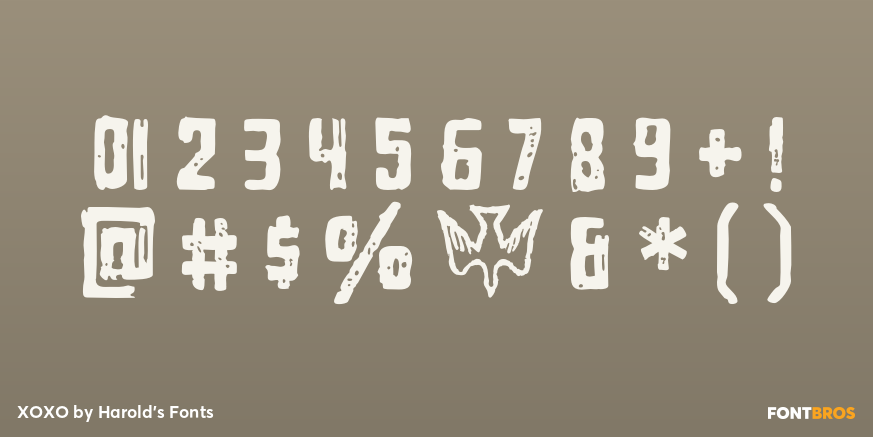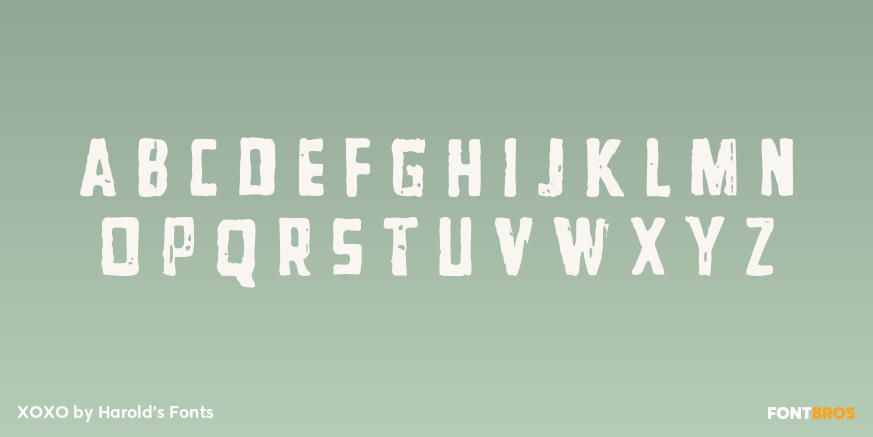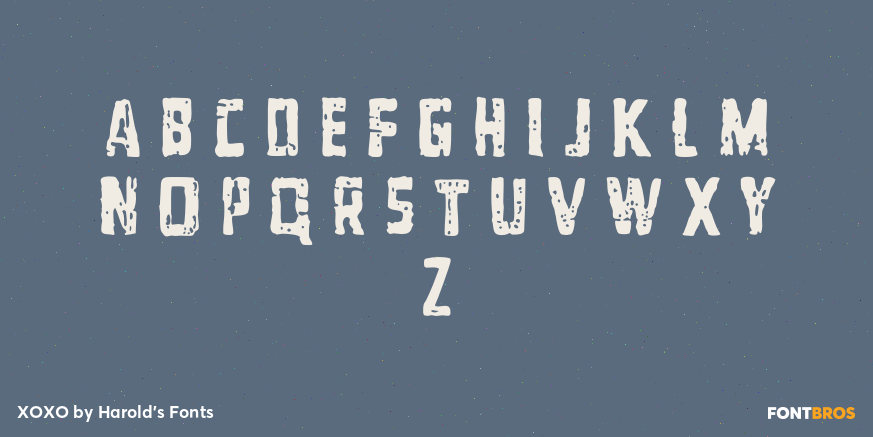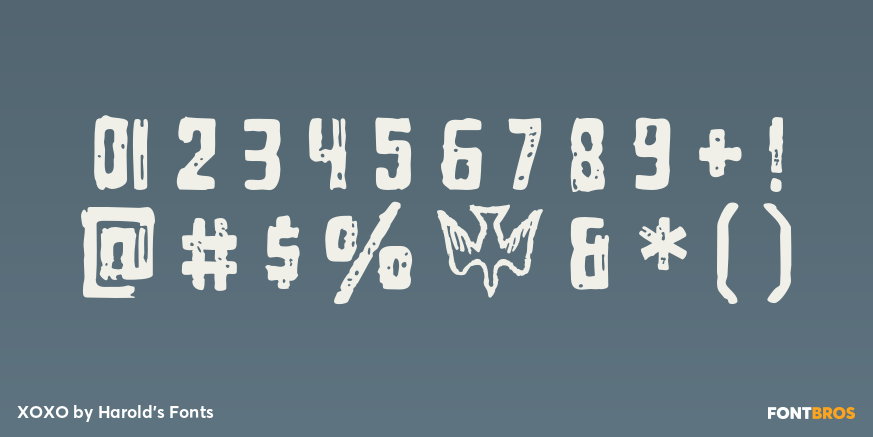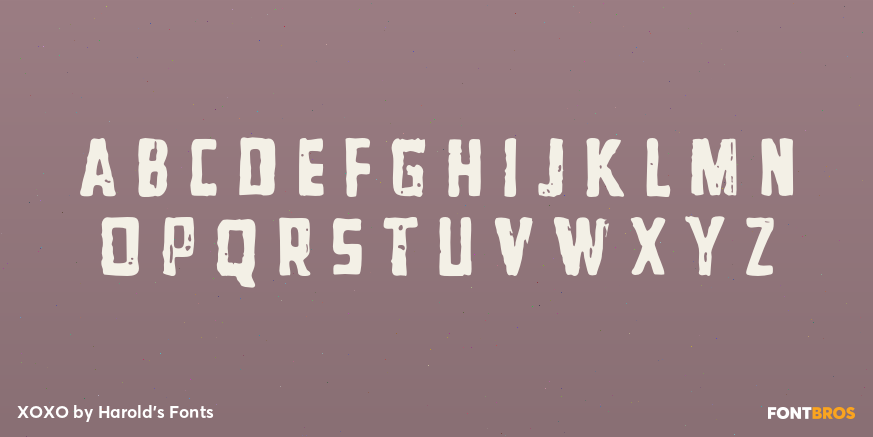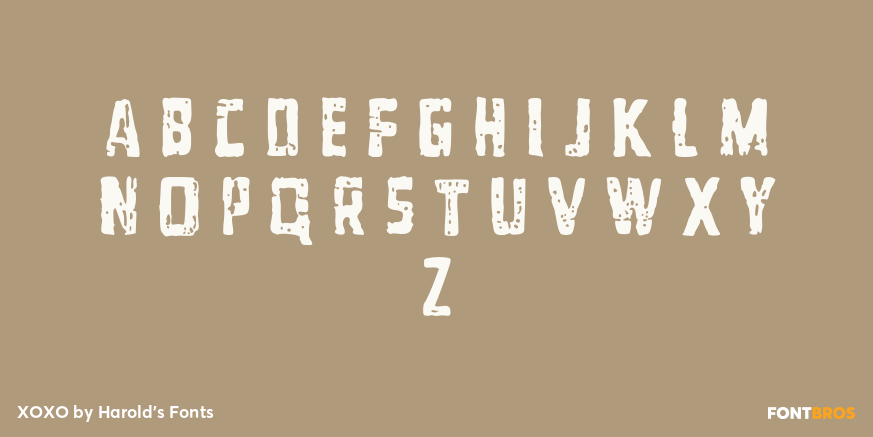
XOXO
Font Family by Harold's Fonts
XOXO is bold, rustic and rather squarish. It inspired by a shopping bag I picked up in Mexico. The quirky lettering and imperfect printing on plastic were irresistible. With two versions of each letter for a more random feel.